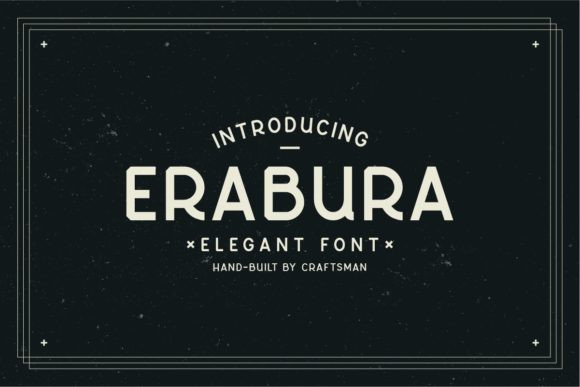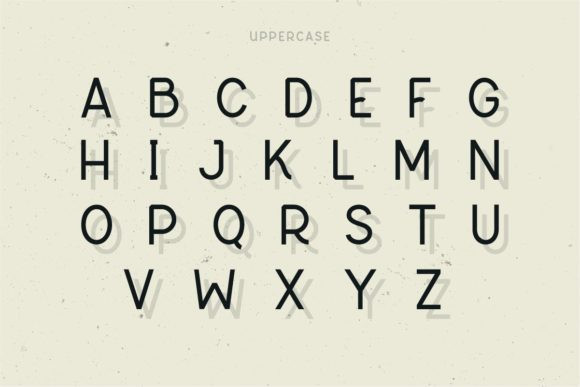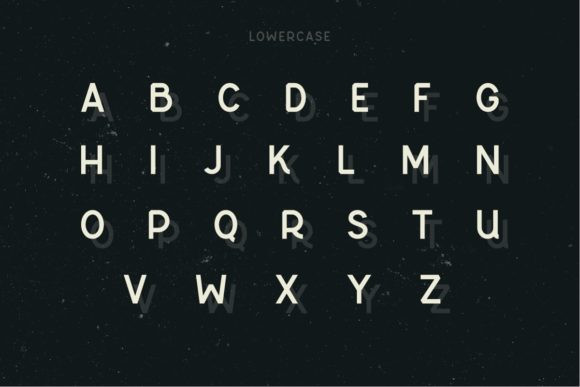
Erabura Font
Erabura is a simple, straightforward and elegant display font that feels unique and timeless. Use it to turn any design idea into a true masterpiece!